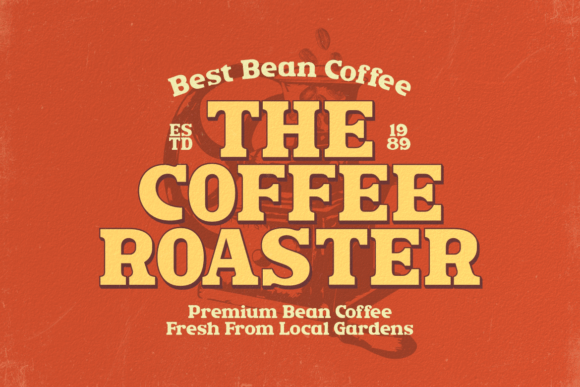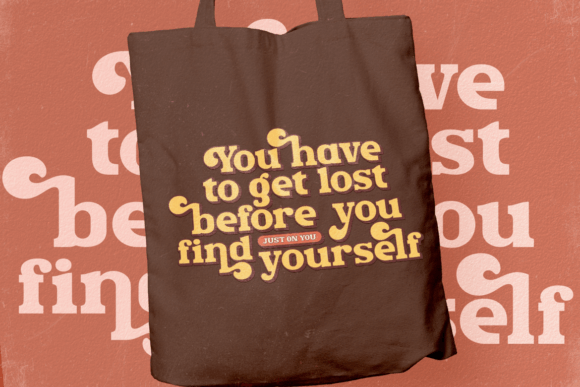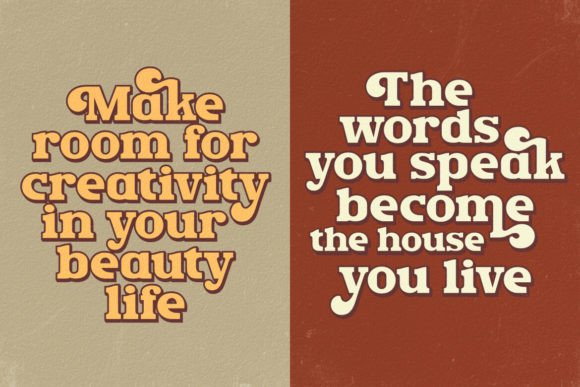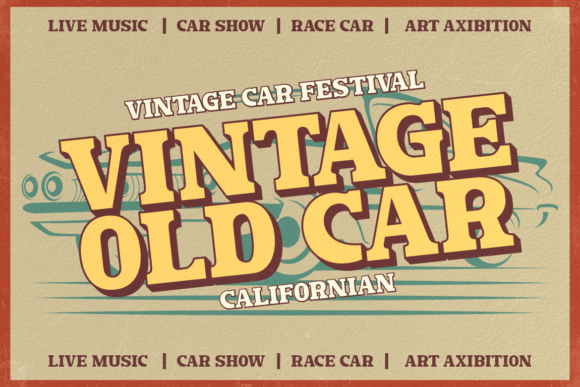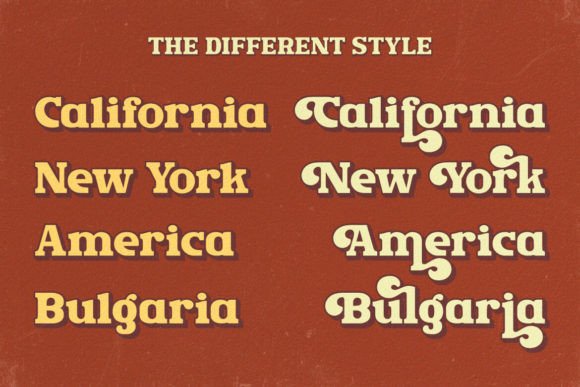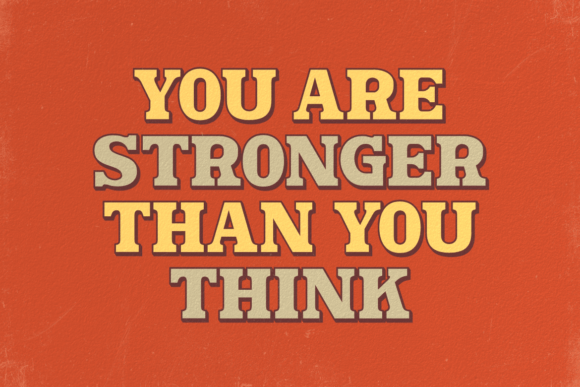
Introduction to Rush Funky Font
Do you ever find yourself stuck in a design rut, searching for that perfect font to bring your creative project to life? I know I do! The moment I stumbled upon the Rush Funky Font, I knew I had found something special. Its unique blend of vintage and retro elements added a touch of sophistication to my design, making it stand out from the crowd.
As a designer, I know how valuable a high-quality font can be. Not only does it elevate the overall aesthetic of your project, but it also helps to convey your brand’s personality and message. The Rush Funky Font is more than just a design resource – it’s a game-changer. With its transparent background and multi-lingual support, this font is ready to be used in any project, from logos and packaging to websites and social media graphics.
Key Features of Rush Funky Font
- Rush Funky Font is a high-quality, unique font design resource ideal for creative projects that require a funky and energetic vibe.
- This font offers a transparent background, allowing for seamless integration with various design elements and backgrounds.
- Rush Funky Font is a high-resolution design resource, available in resolutions up to 300 DPI, making it suitable for print and digital applications.
- This font is perfect for designers looking to add a touch of fun and playfulness to their creative projects, from posters and flyers to digital graphics and social media assets.
- Rush Funky Font is a versatile design resource that can be used in a variety of contexts, from music and entertainment to fashion and lifestyle.
Honest Review: Rush Funky Font
I recently had the chance to work with the Rush Funky Font, and I must say it’s been a game-changer for my creative project. The font is a high-quality design resource that can elevate any text-based element in your design.
- ✨ Unique style: The Rush Funky Font has a truly distinctive look that can add a touch of personality to your design.
- ✨ Versatility: This font can be used for a wide range of creative projects, from bold headlines to fun graphics.
- ⚠️ Limited font weights: While the Rush Funky Font is available in several styles, it could benefit from more font weights to provide more flexibility.
- ⚠️ Not suitable for all backgrounds: Due to its transparent background, this font may not be the best choice for designs with busy or complex backgrounds.
Overall, I’m really impressed with the Rush Funky Font. It’s a high-quality design resource that can add a lot of value to your creative project. While it has some limitations, I think it’s well worth the free download.
Tips for Getting the Most Out of Rush Funky Font
To get the most out of the Rush Funky Font, consider the following tips: Use a transparent background to make your text stand out. Experiment with different font sizes and styles to add visual interest. Combine the Rush Funky Font with other design elements to create a unique look.
Common Use Cases for Rush Funky Font
The Rush Funky Font is commonly used for creative projects such as social media graphics, blog posts, and presentations. It is also a great choice for designing flyers, posters, and other marketing materials.
Is the Rush Funky Font suitable for large-scale designs or creative projects?
Yes, the Rush Funky Font is designed to be versatile and scalable, making it suitable for a wide range of creative projects, from business cards to billboards. Its high-quality design ensures that it will look great in both small and large formats.